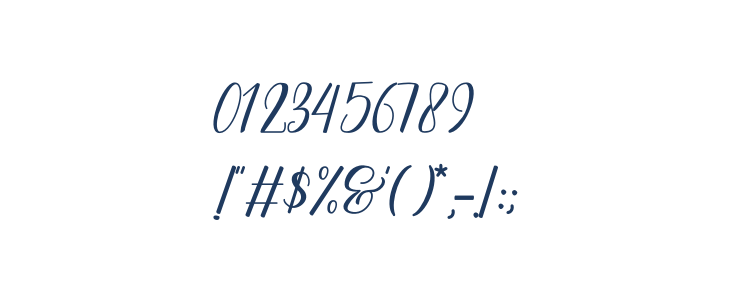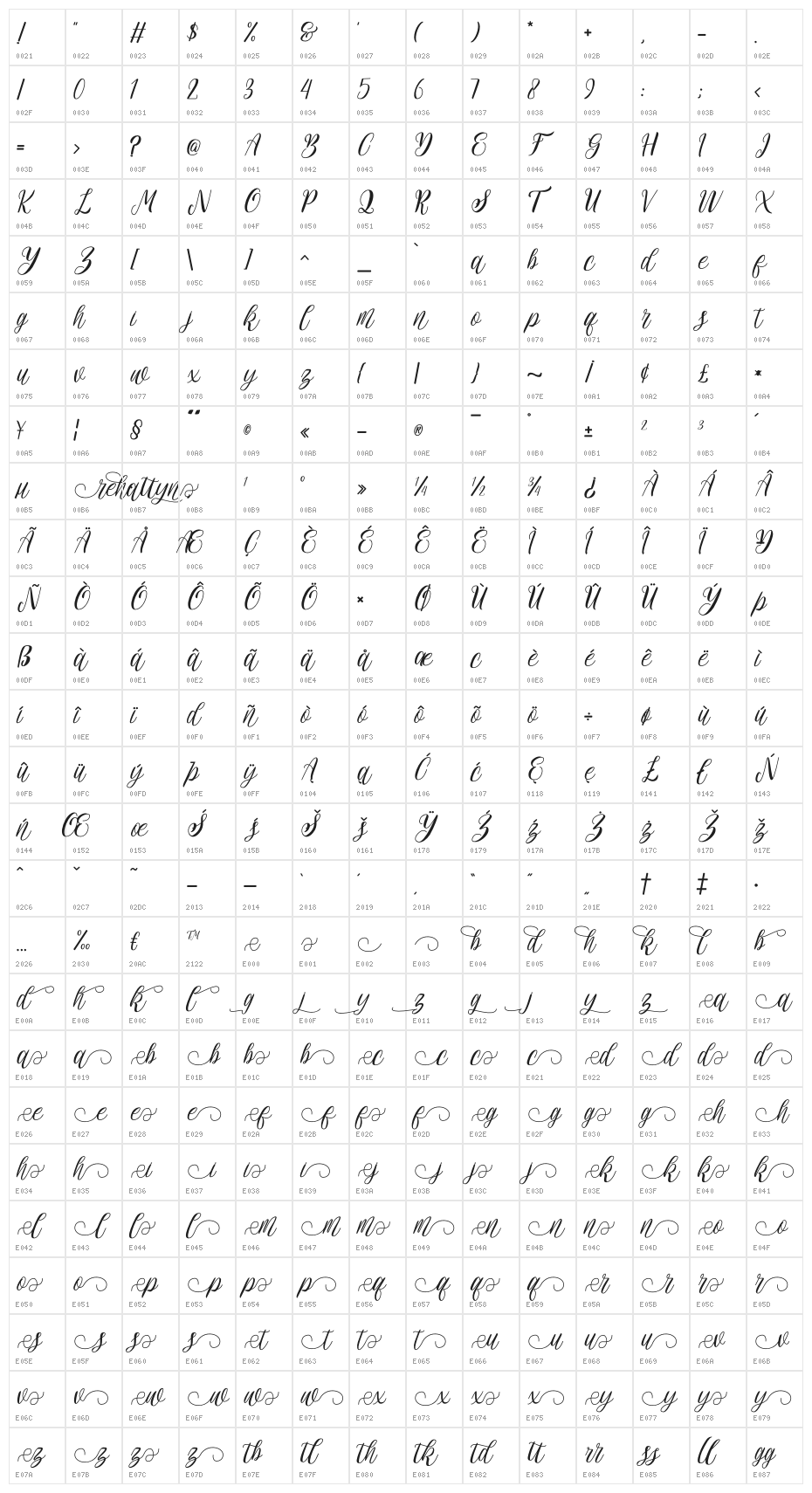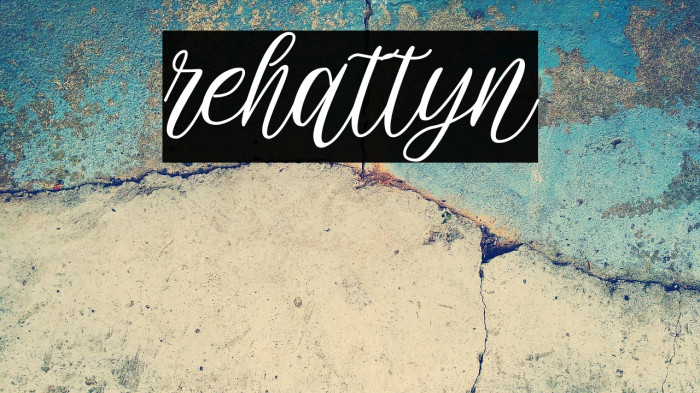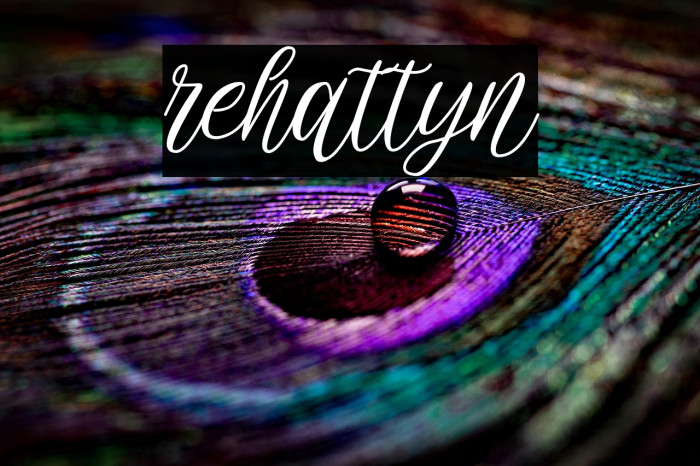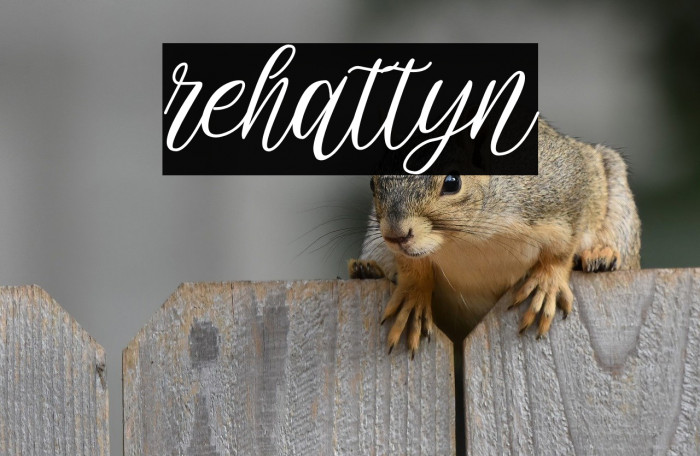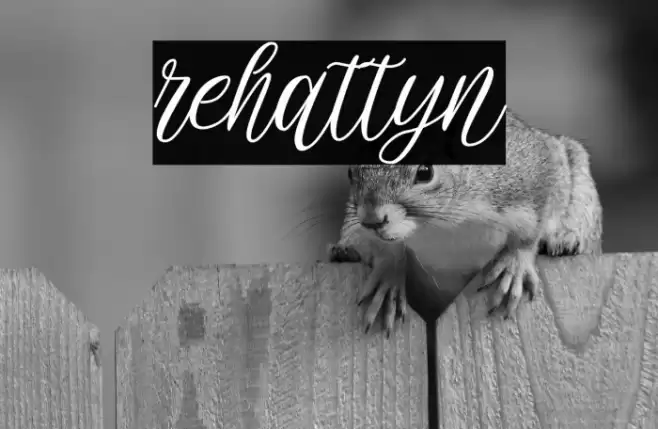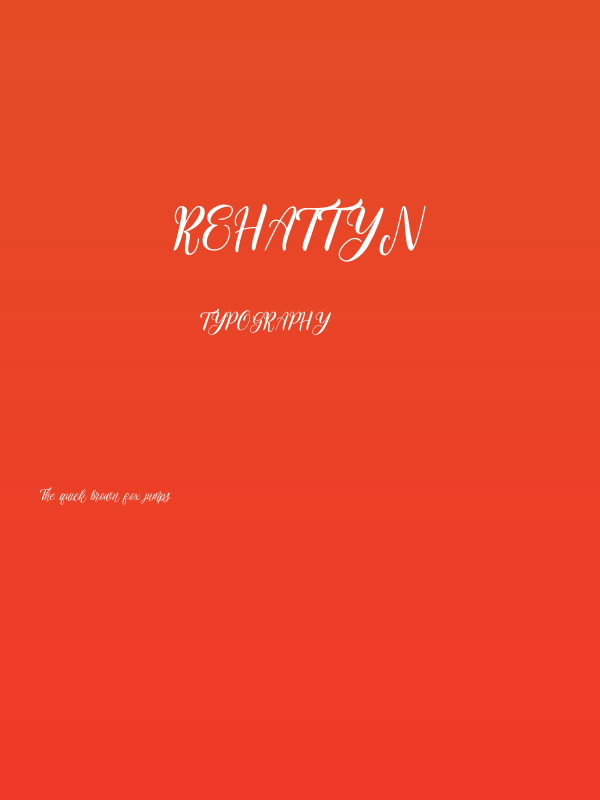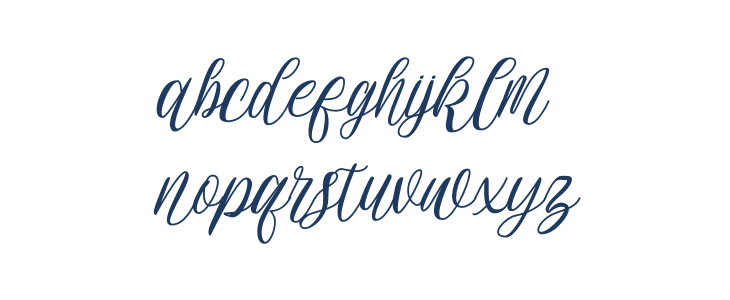
rehattyn Font
rehattyn Description
This elegant script font features flowing, interconnected strokes that give it a graceful and sophisticated appearance. The uppercase letters are tall and slightly narrow, with distinctive loops and flourishes that add a touch of flair. The lowercase letters maintain a consistent style, with smooth curves and a harmonious flow that enhances readability. The numbers and special characters are designed to complement the overall aesthetic, making this font versatile for various applications. Its artistic style is perfect for projects that require a personal and refined touch.
| Overall Style | Elegant, Sophisticated |
| Use Case | Headlines, Invitations, Branding |
| Proposed Projects | Ideal for wedding invitations, greeting cards, branding, and elegant packaging designs. |